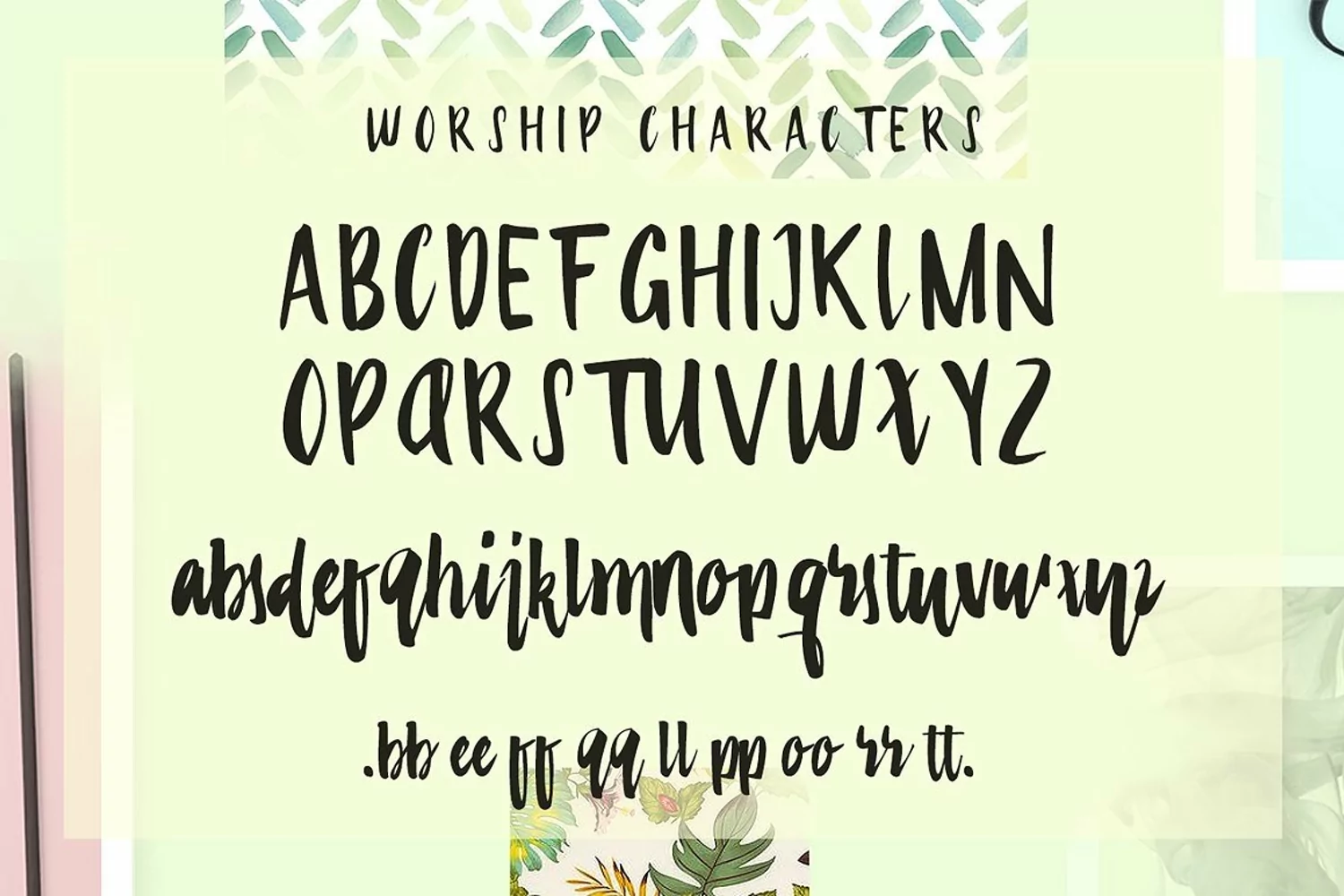
Introducing Worship Display - a new fresh & modern display font with a freestyle brush writing!
This font looks great on personal branding, business cards, stamps, quote posters and greeting cards or even you logo mark. Looks great at larger sizes, so feel free to go big! Make your branding pop!All right! Have fun! If you need any help or have any questions, just give me a shout!